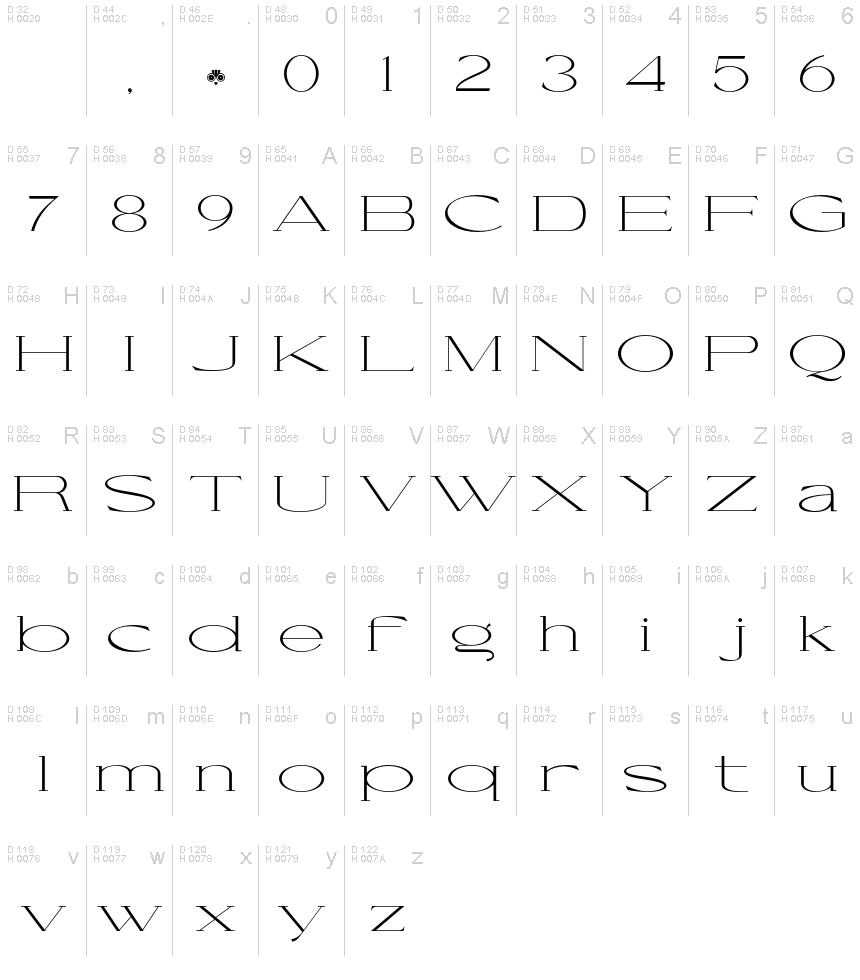
Cellofy Thin ExtraExpanded font, part of the Cellofy family by Owlking Project, offers an elegant serif style characterized by its light weight and expanded width. This combination creates a sophisticated, airy aesthetic that captures attention effortlessly. The expansive formality of each letter elegantly fills space, making it ideal for headlines and titles where distinction is crucial.
Perfect for personal projects seeking a touch of class and uniqueness, Cellofy Thin ExtraExpanded is a free font that can elevate invitations, posters, or digital content. Its refined lines and stylish curves provide an exceptional blend of readability and decorative flair.